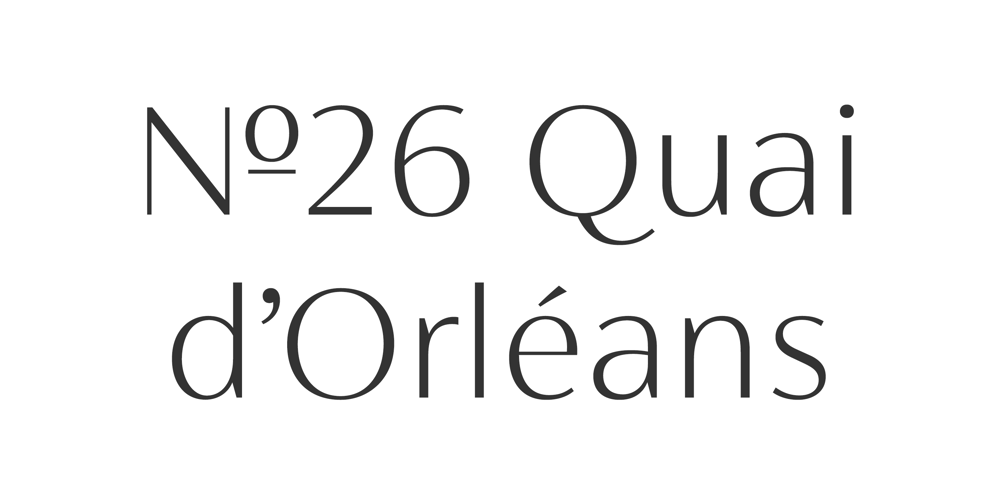
FS Siena
FS Siena font
FS Siena Font Family was designed by Jason Smith, Krista Radoeva and published by Fontsmith. FS Siena contains 14 styles and family package options. EclecticFS Siena is a typeface with history, and not just in the sense of having its origins in classical Roman lettering. Fontsmith founder Jason Smith first committed it to tracing paper while still at college, instinctively redrawing letterforms based on Hermann Zapf’s Optima according to ‘what felt right’. When Krista Radoeva took up the challenge to edit and extend the typeface, she and Jason were determined to preserve its subtly nonconformist and eclectic spirit.Like a great dish, there are individual components throughout the character set that all add flavour, and need to be balanced in order to work together. The smooth connection of the ‘h’ ‘m’ ‘n’ and ‘r’ contrasts with the corners of the ‘b’ and ‘p’. The instantly recognisable double-storey ‘a’ – the starting point of the design – contrasts with the single-storey ‘g’ and the more cursive ‘y’. And only certain characters – ‘k’, ‘w’, ‘v’ and ‘x’ in the lowercase and ‘K’, ‘V’, ‘W’, ‘X’ and ‘Y’ in the caps – have curved strokes.TransitionalFS Siena is a contrasted sans-serif typeface, blending classical elegance and modern simplicity. Its construction and proportions are descended from classical broad-nib calligraphy and humanist typefaces, with a high contrast between the thick and thin strokes. The angle of the contrast, though, is vertical, more in the character of pointed-nib calligraphy and modernist typefaces. This vertical stress helps to give FS Siena a strong, cultured presence on the page.Idiosyncratic italicsThe italics for FS Siena were developed by Krista to complement the roman upper and lower-case alphabets first drawn by Jason. Many of the letterforms are built differently to their roman counterparts: there’s a single-tier ‘a’, a looped ‘k’ and connections more towards the middle of stems, such as in the ‘m’, ‘n’ and ‘u’. These distinctions, along with generally much narrower forms than the roman, give the italics extra emphasis within body copy, where the two are side-by-side. In editorial, especially, the combination can be powerful.To cap it all…In his original draft of the typeface, Jason found inspiration in Roman square capitals of the kind most famously found on Trajan’s Column in Rome. In keeping with those ancient inscriptions, he intended the capitals of FS Siena to also work in all-upper-case text, in logotypes for luxury consumer brands and property developments, for example.A little added space between the upper-case letters lets the capitals maintain their poise in a caps-only setting, while still allowing them to work alongside the lower-case letterforms. The caps-only setting also triggers a feature called case punctuation, which adapts hyphens, brackets and other punctuation to complement the all-caps text.